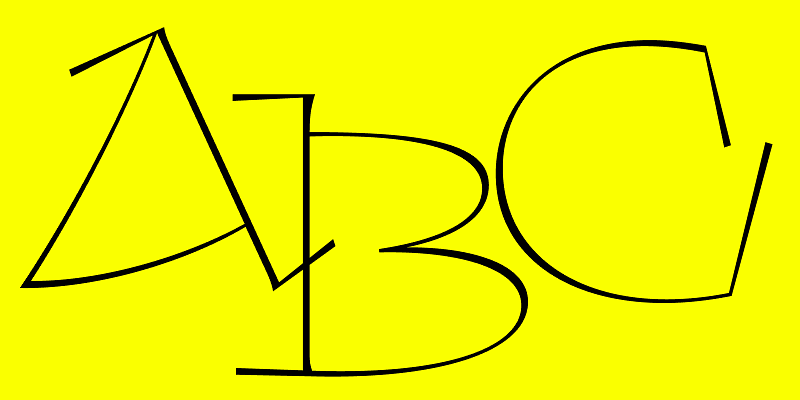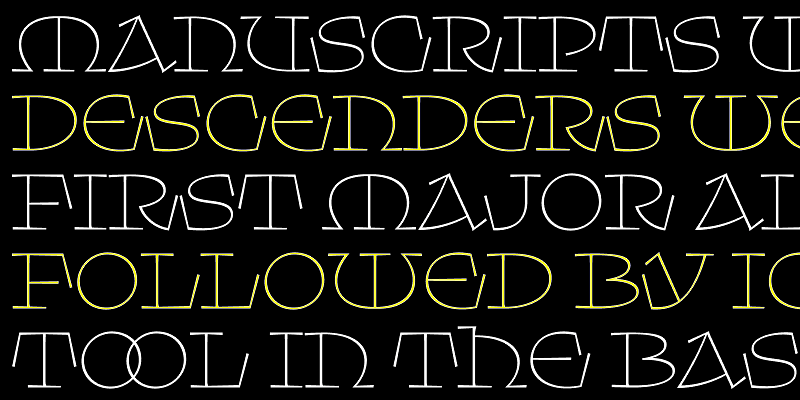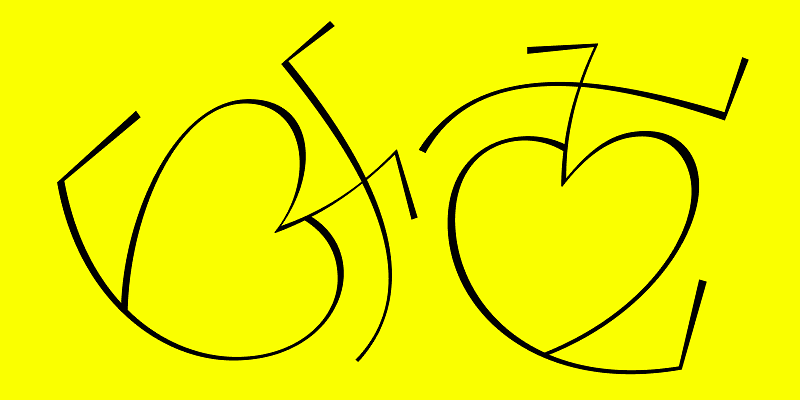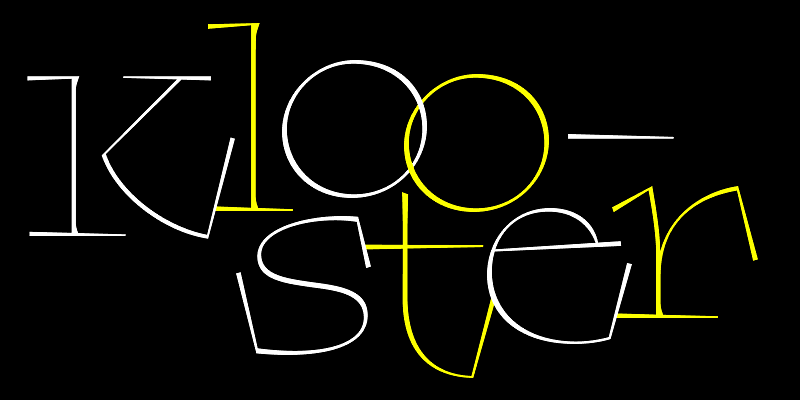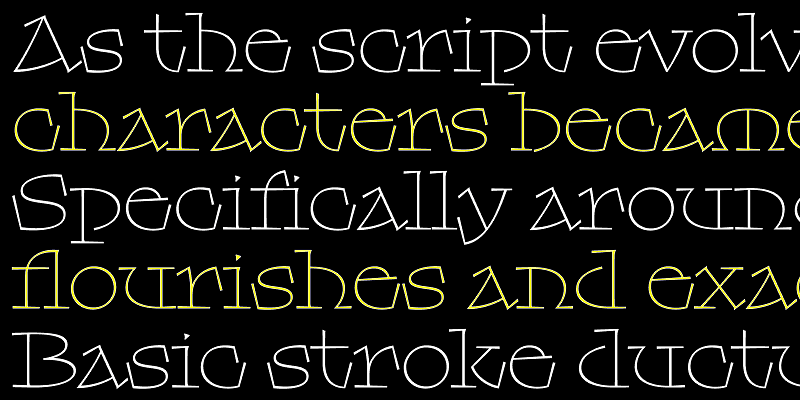
Klooster is a broad titling face modeled after the uncial script. While the uncial script dates back to the fourth century, this rendition has its origins in a twentieth century ex-libris shown in D. Giltay Veth’s 1950 book “Dutch Bookplates: A selection of modern woodcuts & wood engravings”. Some letters resemble Roman capitals as we know them, while others lean towards the rounded forms destined to eventually become our lowercase. Bursting with energy, Klooster sharp wedges complement its spritely, gestural curves.